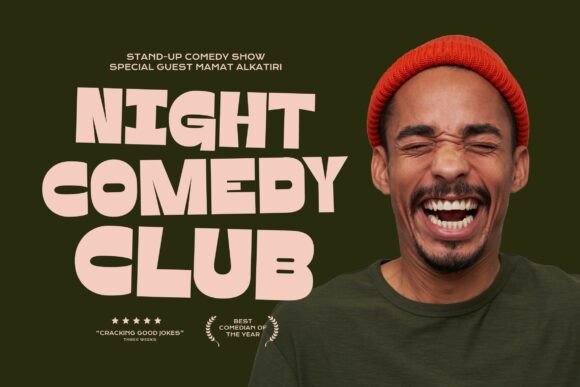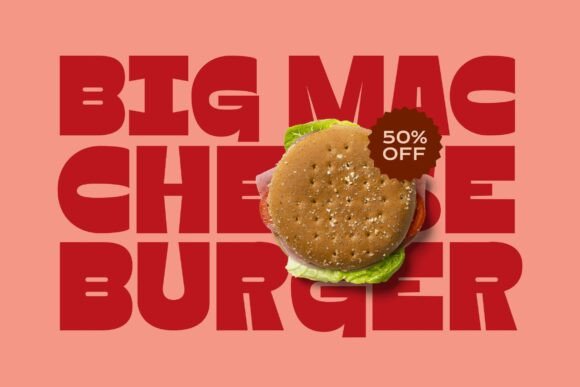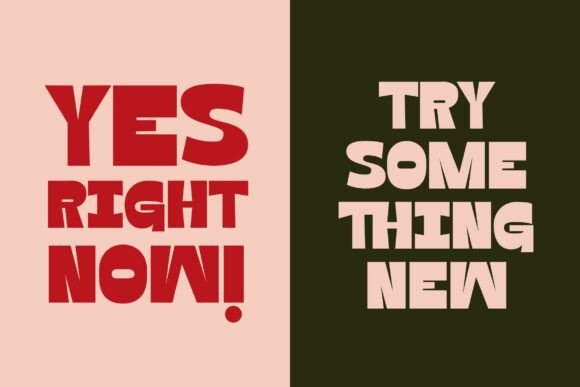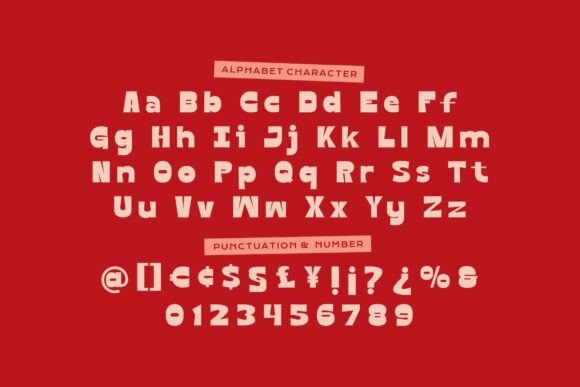
Introducing Crazy Bogie: The Bold Display Typeface with a Cheerful Retro Twist
Are you tired of using the same old fonts for your design projects? Look no further than Crazy Bogie, a bold display typeface that’s sure to grab attention and add a touch of personality to your work. With its cheerful retro twist, Crazy Bogie is perfect for designers and crafters who want to create eye-catching headlines, posters, packaging, and more.
The Unique Characteristics of Crazy Bogie
Crazy Bogie is built from thick geometric blocks featuring unexpected angles, tight counters, uneven cuts, and a handmade vibe that makes every character feel unique. This bold display typeface is designed to deliver a playful yet impactful style that works beautifully for both digital and print design. Whether you’re designing comedy and event posters or show promos, food brands, streetwear merchandise, kids products, or bold ad campaigns and billboards, Crazy Bogie adds instant character and a creative touch.
Crazy Bogie is an incredibly versatile font that’s perfect for a wide range of design projects. Here are just a few ideas to get you started:
- Comedy and event posters: Add a touch of humor and whimsy to your posters with Crazy Bogie’s bold and playful style.
- Food brands: Use Crazy Bogie to create eye-catching signage and packaging for burgers, food trucks, restaurants, and cafés.
- Streetwear merchandise: Add a bold and edgy touch to your streetwear designs with Crazy Bogie’s unique geometric blocks.
- Kids products and toys: Create fun and engaging designs for kids with Crazy Bogie’s playful and colorful style.
- Bold ad campaigns and billboards: Make a statement with Crazy Bogie’s bold and impactful style.
Why Choose Crazy Bogie?
So why choose Crazy Bogie over other fonts? Here are just a few reasons:
- Unique and eye-catching style: Crazy Bogie’s bold and playful style is sure to grab attention and add a touch of personality to your designs.
- Versatile: Crazy Bogie works beautifully for both digital and print design, making it perfect for a wide range of projects.
- Easy to use: With its clear and legible design, Crazy Bogie is easy to use and pairs well with a variety of other fonts.
- Instant character: Crazy Bogie adds instant character and a creative touch to any design project.
How to Use Crazy Bogie in Your Designs
Using Crazy Bogie in your designs is easy. Here are a few tips to get you started:
- Pair with other fonts: Crazy Bogie pairs well with a variety of other fonts, so feel free to experiment and find the perfect combination for your design.
- Experiment with colors: Crazy Bogie’s bold style works well with a variety of colors, so don’t be afraid to get creative and try out different color combinations.
- Use it sparingly: While Crazy Bogie is a bold and eye-catching font, it works best when used sparingly. Try using it for headlines or titles, and pairing it with a simpler font for body text.
If you’re looking for a bold and eye-catching font that’s sure to add a touch of personality to your designs, look no further than Crazy Bogie. With its unique geometric blocks, playful style, and versatile design, Crazy Bogie is perfect for a wide range of design projects. So why wait? Download Crazy Bogie today and start creating eye-catching designs that are sure to grab attention.
Key Features of Crazy Bogie
- Bold display typeface: Crazy Bogie is a bold and eye-catching font that’s perfect for headlines, posters, and more.
- Cheerful retro twist: Crazy Bogie’s playful style is inspired by the fun and energy of retro design.
- Geometric blocks: Crazy Bogie is built from thick geometric blocks featuring unexpected angles and uneven cuts.
- Handmade vibe: Crazy Bogie’s handmade vibe makes every character feel unique and special.
- Perfect for digital and print design: Crazy Bogie works beautifully for both digital and print design, making it perfect for a wide range of projects.